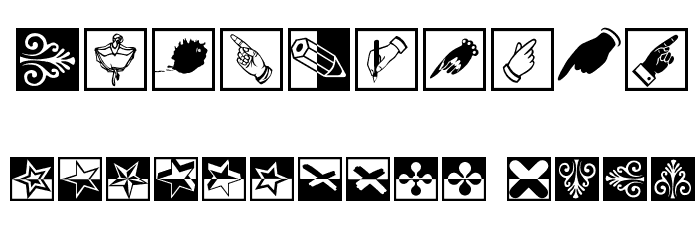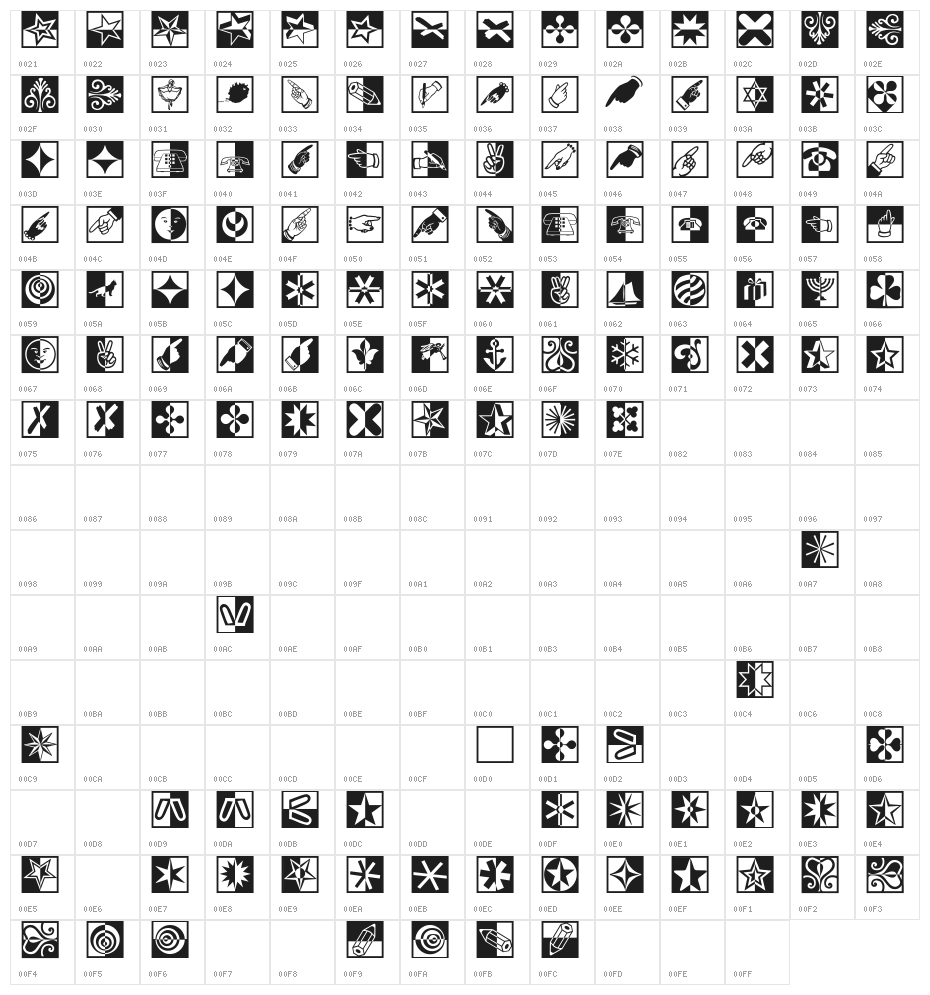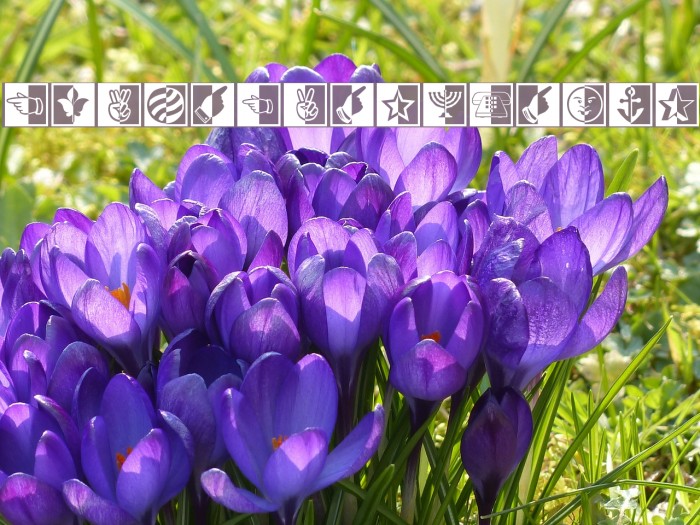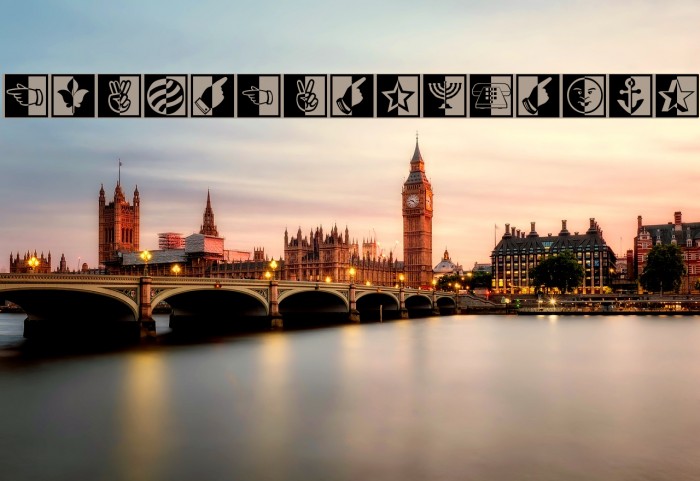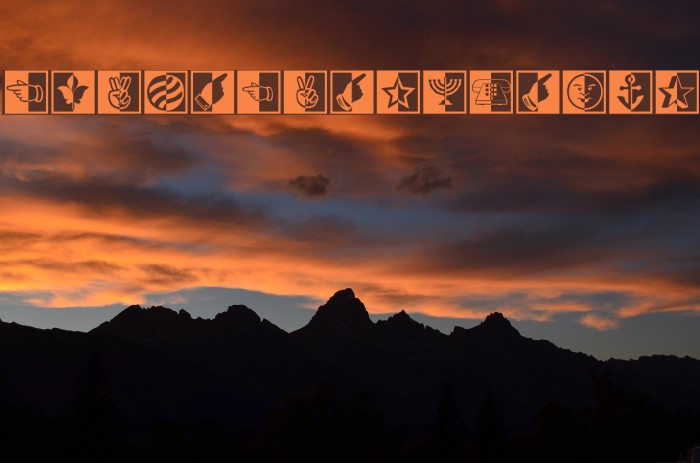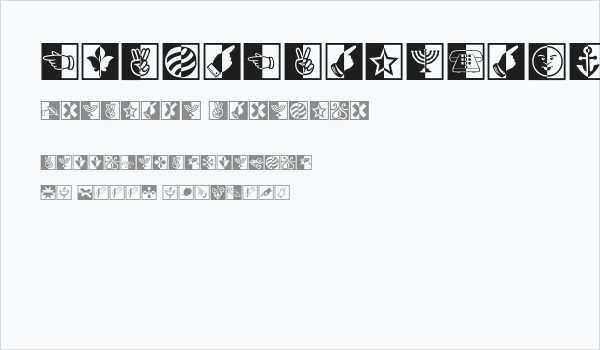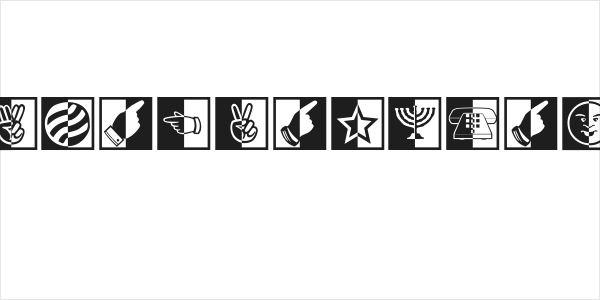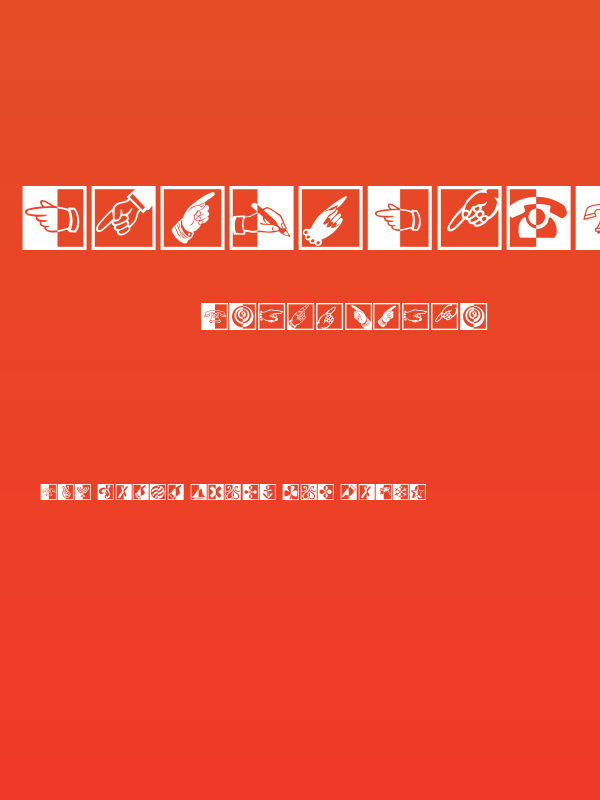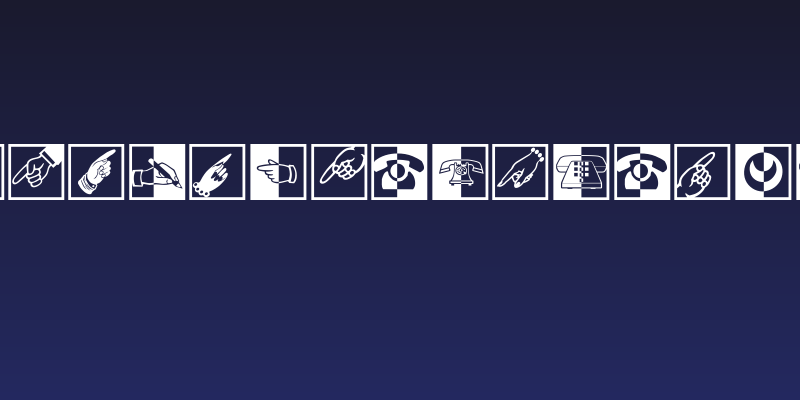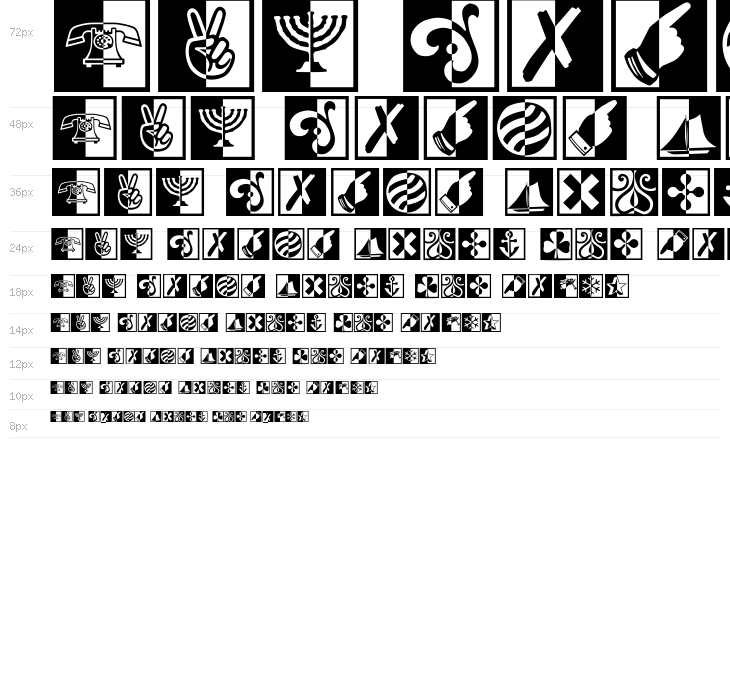
BlackWhiteSigns Font
BlackWhiteSigns Description
A highly decorative dingbat font featuring a variety of black-and-white pictograms, including hands in different gestures, nautical symbols, stars, arrows, floral motifs, and abstract shapes. Each glyph is enclosed in a square, alternating between black and white backgrounds, creating a bold, high-contrast appearance.
| Overall Style | Decorative, Playful, Retro |
| Use Case | Icons, Decorative elements, Thematic dividers, Visual cues |
| Proposed Projects | Posters, signage, scrapbooking, branding for playful or retro themes, educational materials, visual communication aids. |